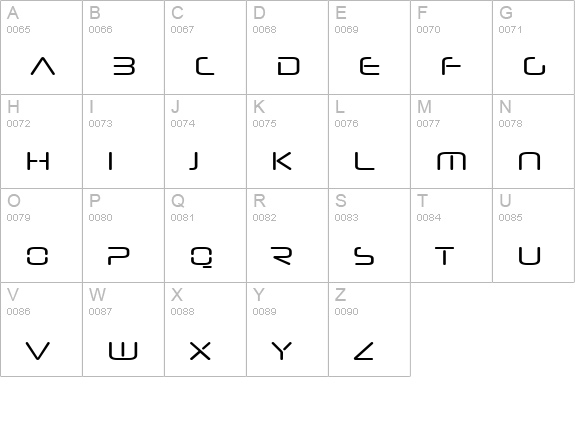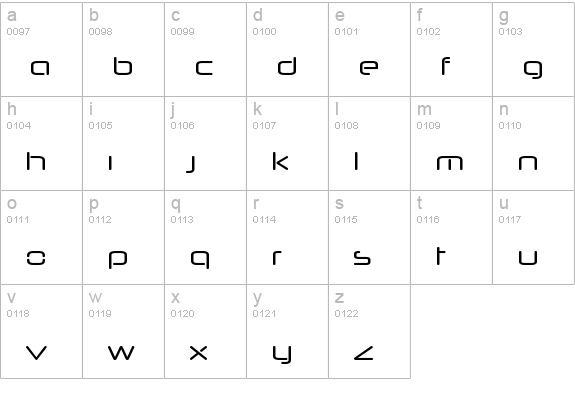
Neuropol Nova is a futuristic and sleek typeface that exudes a sense of modernity and innovation. This font is perfect for projects that require a cutting-edge and contemporary look, such as technology, science fiction, and gaming designs. Its sharp angles and geometric forms give it a distinct style that is sure to make a statement. What makes Neuropol Nova even more appealing is that it is available for free download at FontsMarket.com. This means that you can easily access this high-quality font without any cost, making it a valuable resource for designers, creatives, and anyone looking to add a touch of sophistication to their projects. With its versatility and unique aesthetic, Neuropol Nova is a must-have font for anyone seeking to elevate their designs to the next level.